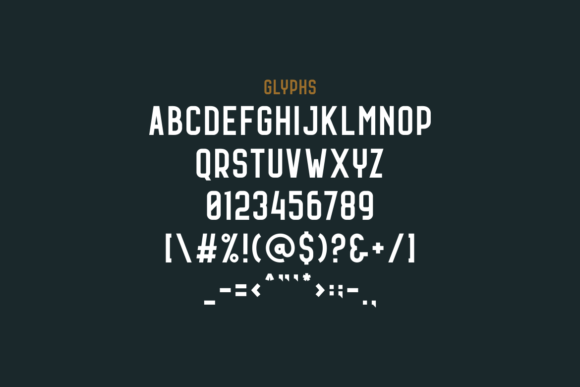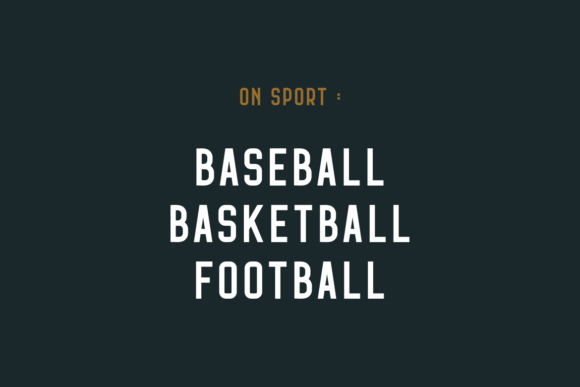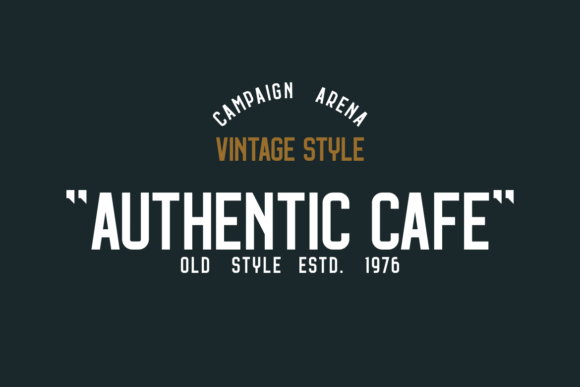
Introduction to Respano Font
Respano is a contemporary display font that exudes sophistication and originality.
With sleek, angular lines and a distinctive geometric style, this font adds a bold touch to any design project Perfect for logos, headings, and advertising, Nova Sans is a true standout in the world of typography.
Key Features of Respano Font